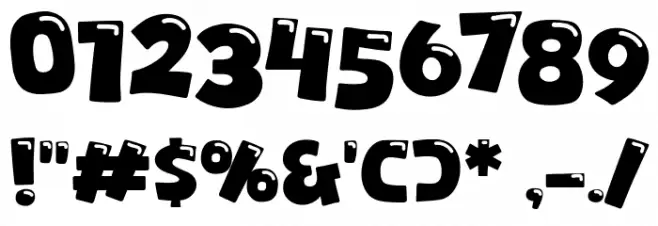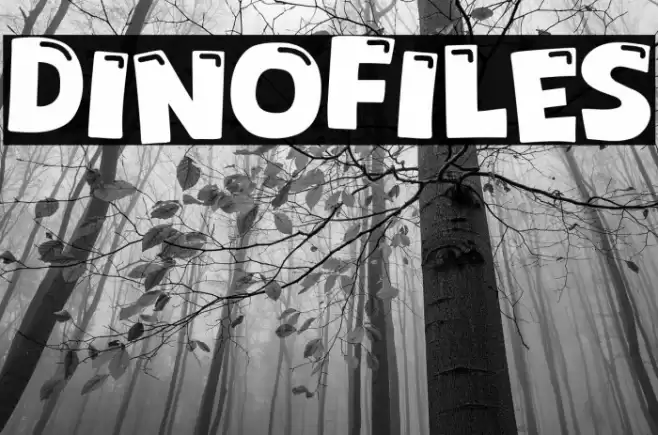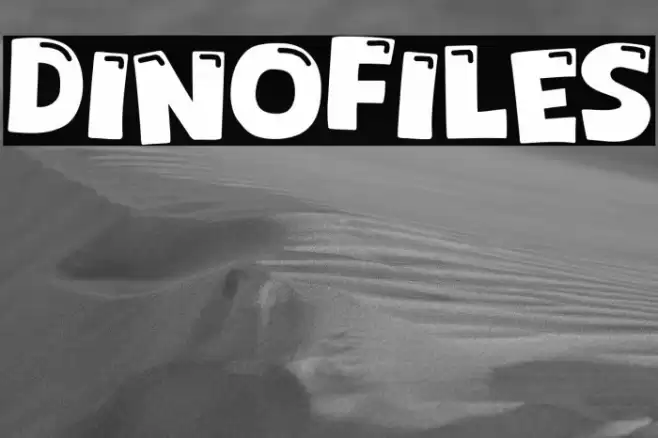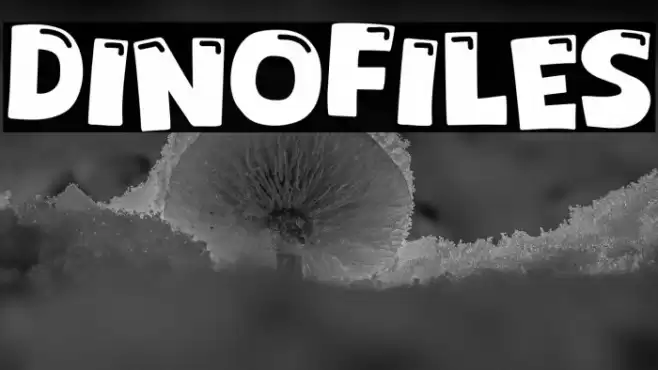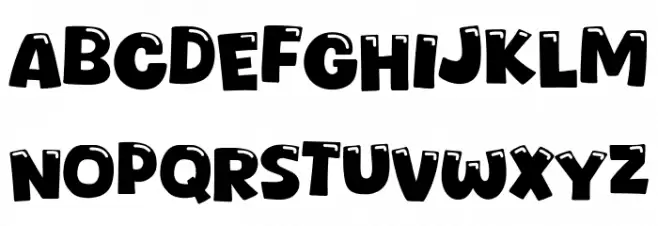
Dinofiles Font
Dinofiles Description
This playful and bold font features a whimsical and chunky style, reminiscent of cartoon or comic book lettering. Each character is designed with a slightly uneven and exaggerated form, giving it a lively and dynamic appearance. The letters have a strong presence with thick strokes and rounded edges, creating a friendly and approachable look. The font maintains a consistent weight throughout, ensuring readability while adding a touch of fun. Its unique style makes it ideal for projects that require a sense of humor or creativity, such as children's books, playful branding, or eye-catching headlines.
| Overall Style | Playful, Whimsical, Cartoonish |
| Use Case | Headlines, Logos, Children's Books |
| Proposed Projects | Ideal for children's books, playful branding, comic strips, and eye-catching headlines. |